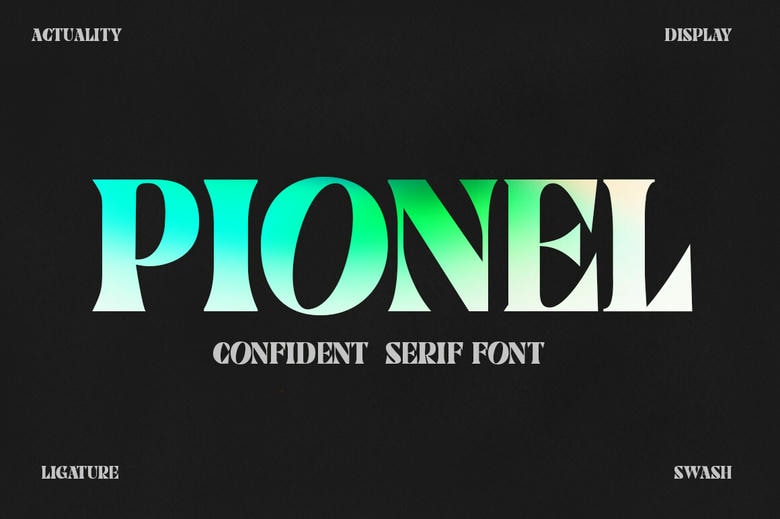
Pionel Font
Pionel is a bold and assertive display serif font. No matter the topic, this font will be an incredible asset to your fonts’ library, as it has the potential to elevate any creation. The free version provides all uppercase and lowercase letters and a few special characters too.
Pionel Serif Font